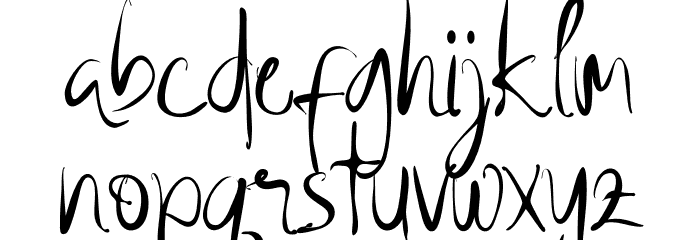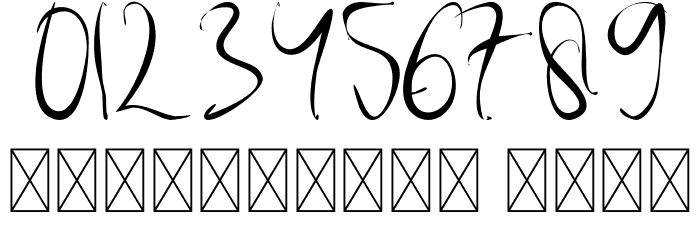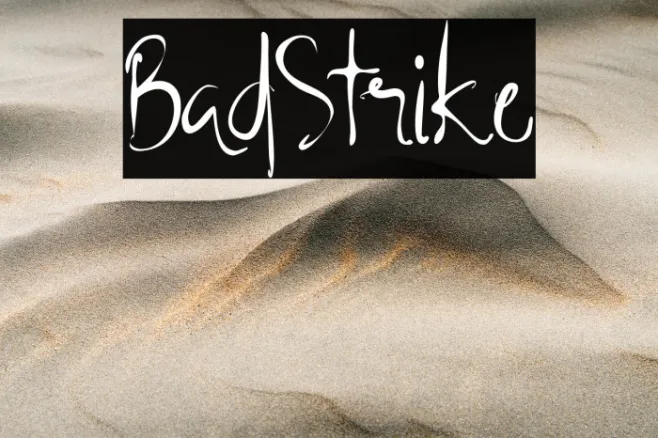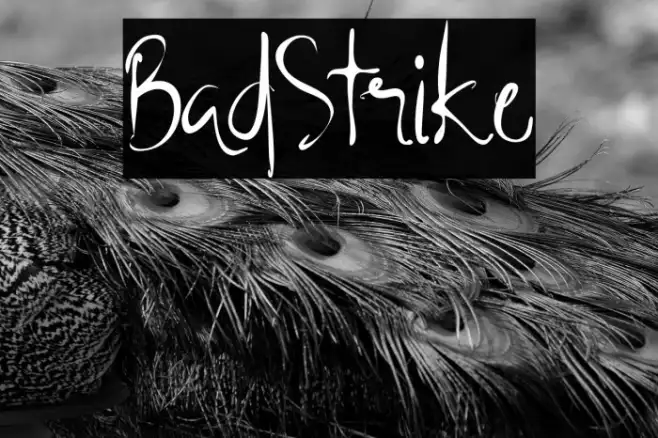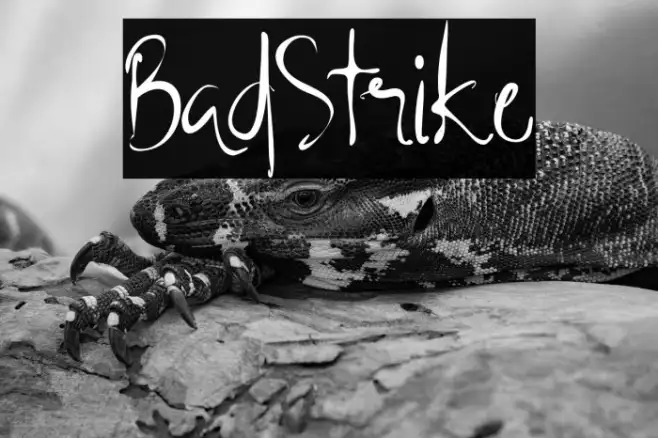
BadStrike Font
This font exhibits a dynamic and expressive style, characterized by its fluid and organic strokes. The uppercase letters are tall and slender, with a slight slant that adds to the handwritten feel. The lowercase letters maintain a consistent flow, with some characters featuring unique loops and curves that enhance the overall artistic appearance. The numerals are equally expressive, with varying stroke widths that contribute to the font's lively personality. The special characters are designed to match the energetic style, making this font suitable for creative and informal applications.
A dynamic, handwritten-style font with fluid strokes and expressive characters.
- Proposed Projects: Ideal for creative projects such as invitations, greeting cards, artistic posters, and branding materials that require a personal touch.
- Use Case: Logos, Headlines, Artistic projects